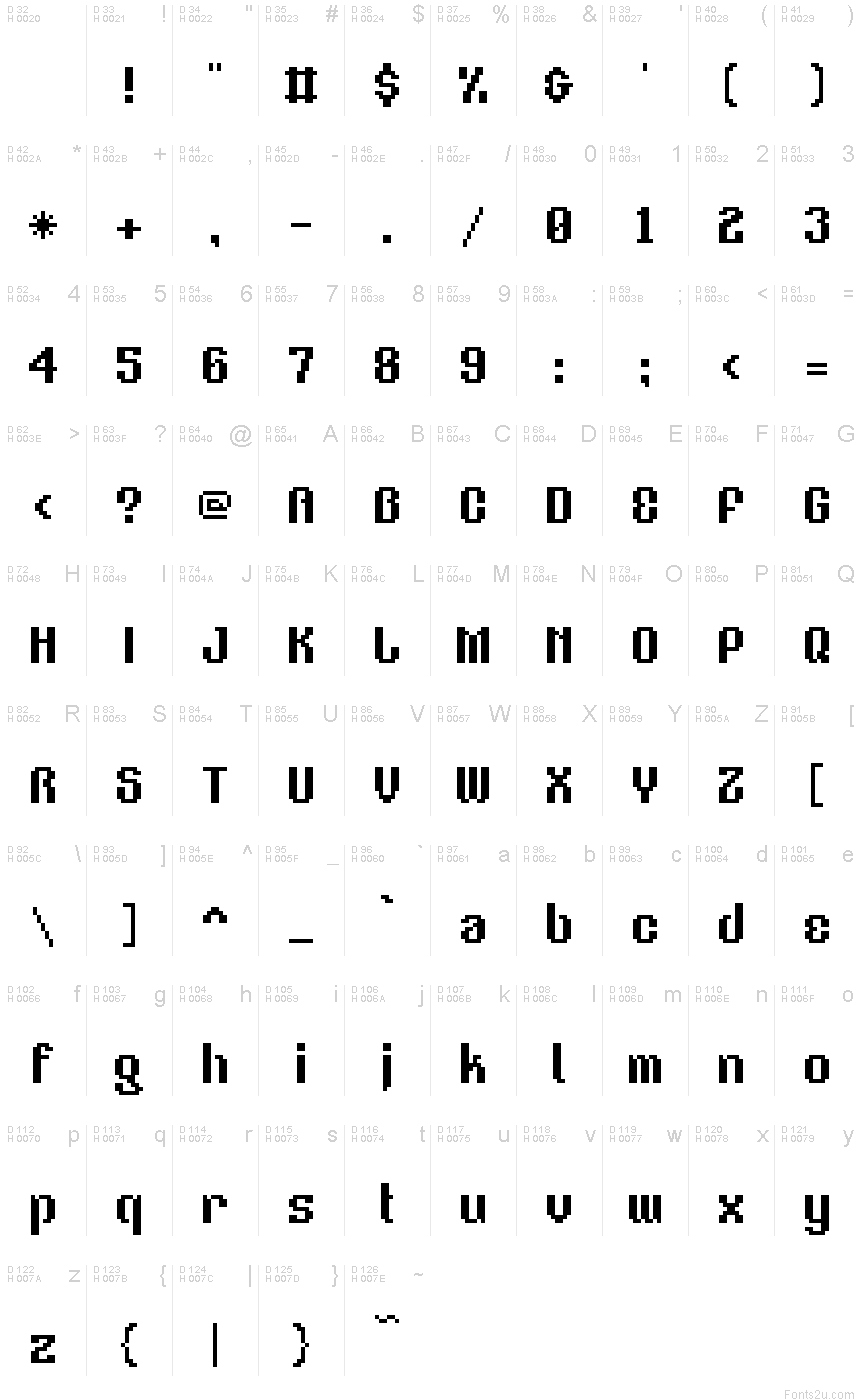
V5 Eastergothic
V5 Eastergothic, Roberto Christen's free bitmap blackletter font from 2000, turns Gothic lettering into a blocky screen-era texture. The letters feel carved out of square pixels, with broken joins, chunky diagonals, and a rigid rhythm that gives the medieval reference a raw early-digital edge.
It fits naturally in game titles, zine covers, rave flyers, poster headlines, and web graphics that want a retro desktop mood without losing that old-script bite. As a free font, it works best in short display settings like title cards or logo-style words, where the jagged pixel pattern and Gothic silhouette can do the heavy lifting fast.